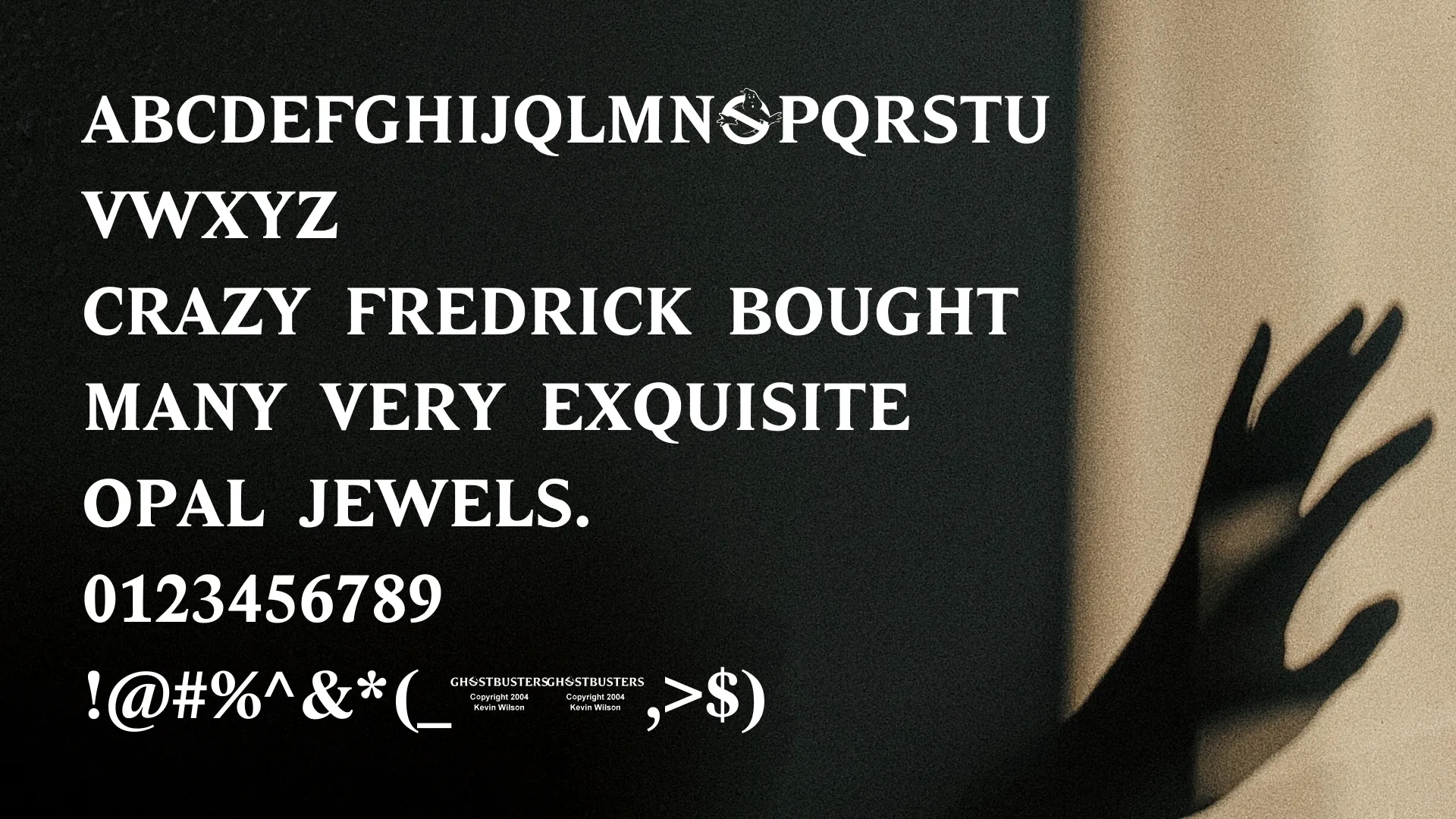
Ghostbusters Font is a logo-inspired typeface with a strikingly elegant texture. Ideal for creative and display projects, this font style is famously used in the logo of the popular American comedy and fantasy film Ghostbusters. Directed by Jason Reitman, the movie was released on November 19, 2019.
This movie got famous all over the globe. The font that was used in this movie was also getting noticed and demanded by the designers and corporates.
There are quite a few typefaces that are similar to this textured style. The Star War Font and Wakanda Font, on the other hand, are the most comparable to this font. As a result, you can use these fonts instead of Star War Font and Wakanda Font.
This font design is well known for its ability to copy and paste. This typeface also has a pairing nature that can easily make paired with Pinterest logo font.
This font style is perfect for artistic tasks. It gained a lot of popularity among designers because of its unique texture, and many designers utilize it in their numerous fancy designs. This typeface is perfect for photoshop design because it gives the image texture pattern a beautiful look.
Creator of Ghostbusters Font
This logo-based font is designed by Kevin Wilson. He is a well-known designer who has also designed many creative fonts that have been famous all over the world. While creating this font he focused on creativity and readability of this font.
This typeface texture is created in a particular style. This single style features capital letters, small letters, glyphs, punctuation, numerals, symbols, and special characters, as well as language support.
View of Ghostbusters Font
What Is Ghostbusters Font?
It is a logo-based font that has a bold and elegant texture appearance. This typeface is best for creative and display designs.
Who designed Ghostbuster Font?
This logo-based font is designed by Kevin Wilson. He is a well-known designer who has also designed many creative fonts that have been famous all over the world.
Is there any similar font to the Ghostbusters Font?
There are some of the fonts that are similar to this font. But the Godfather Font has the most resemblance to this font.
Where You Can Use Ghostbusters Font?
is a logo-based font that has a bold and elegant texture appearance. This typeface is best to create logos, headings, posters, banners, broachers, front displays, and panaflex.
Is Ghostbusters Font a Good Font?
This typeface has been used in the logo of the movie and has been utilized by many designers in different designs and projects.